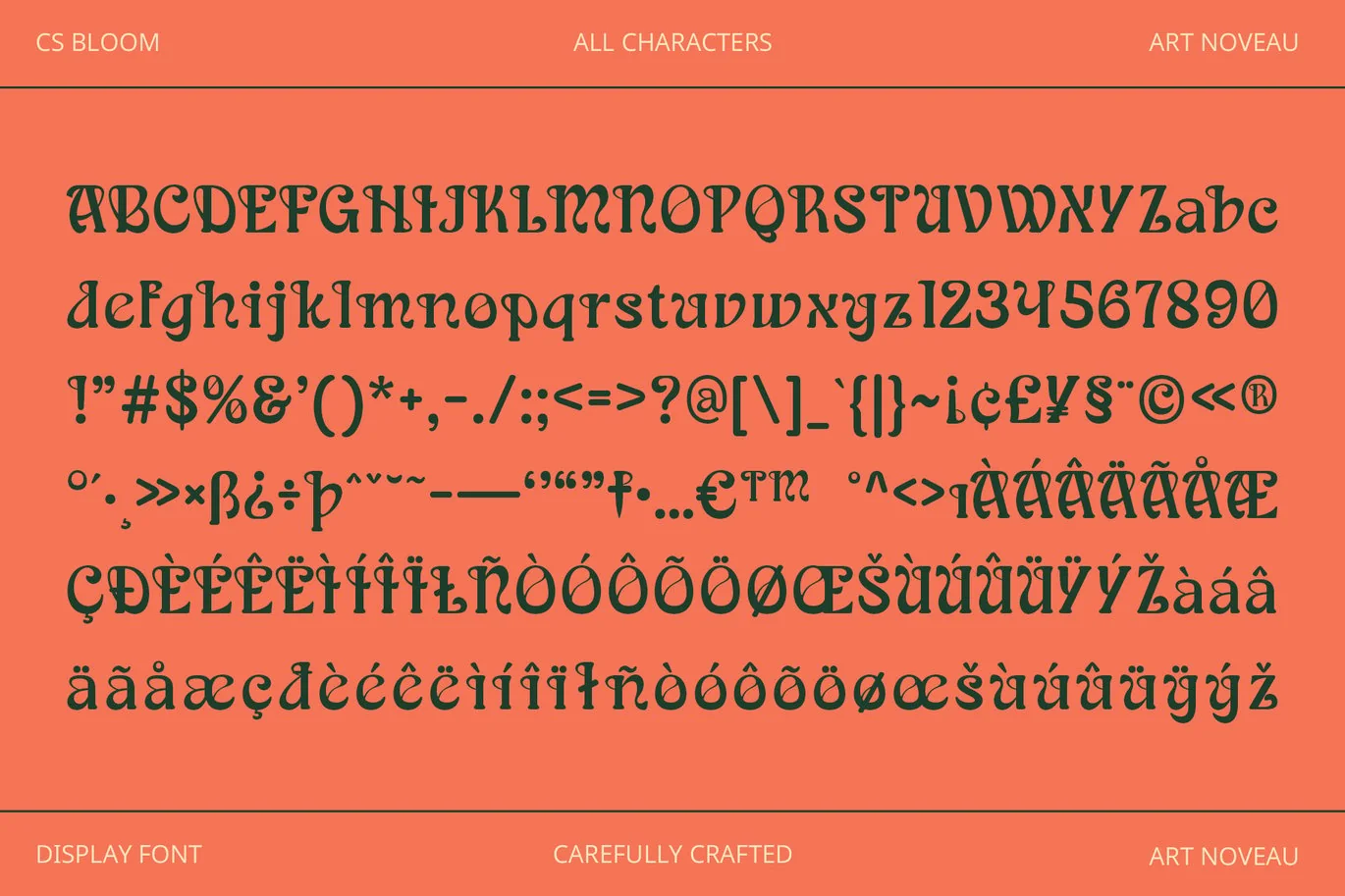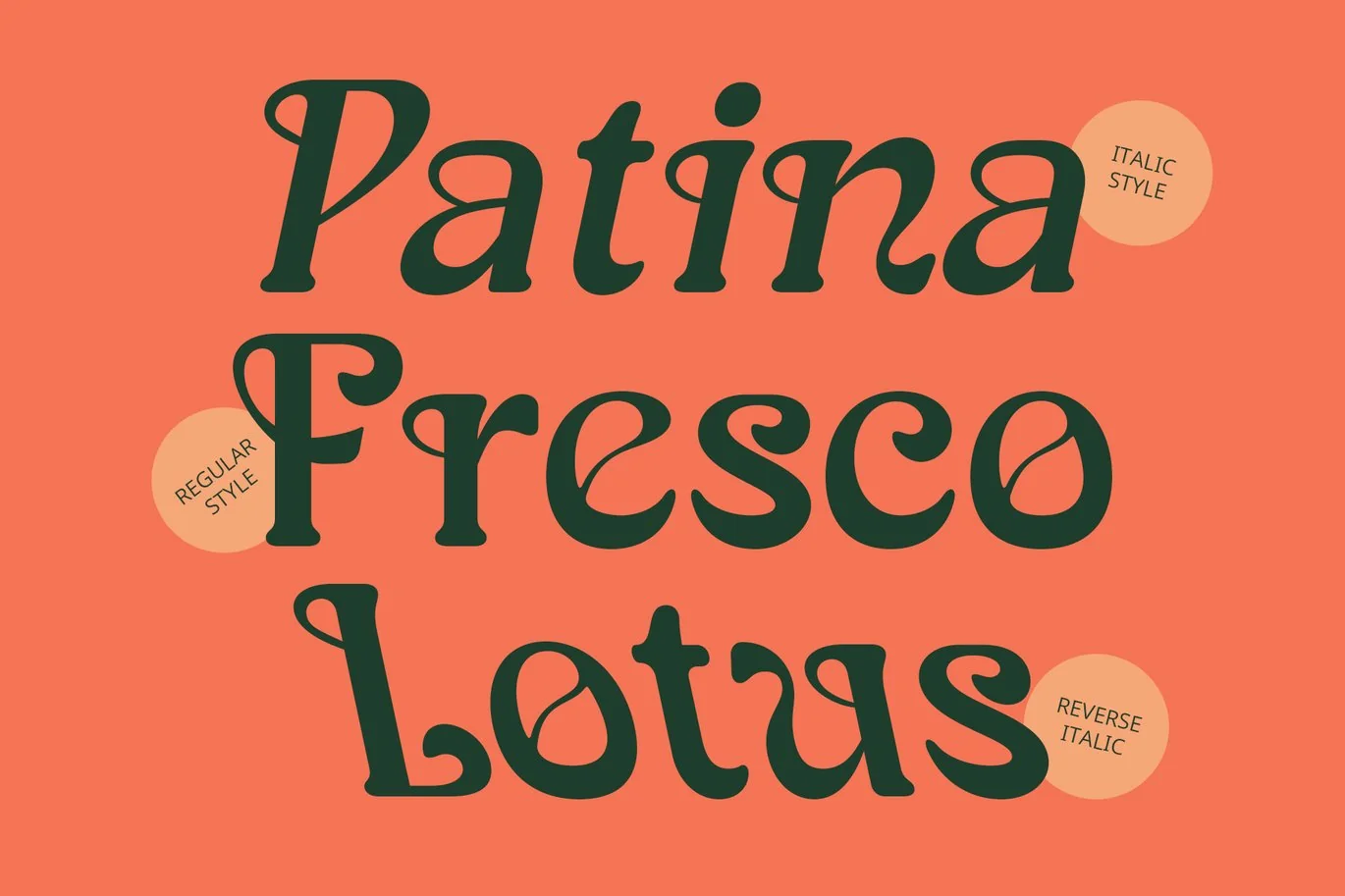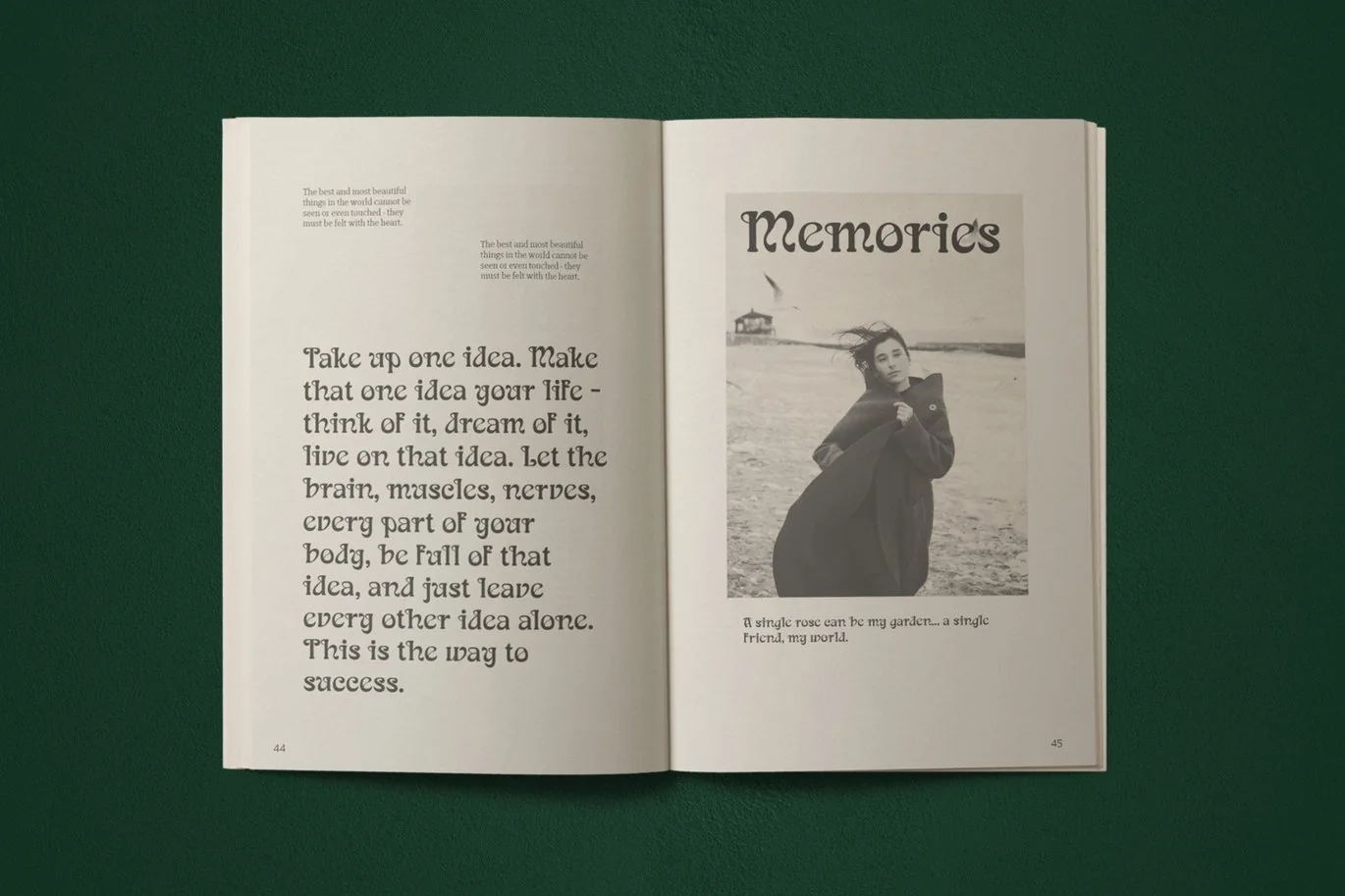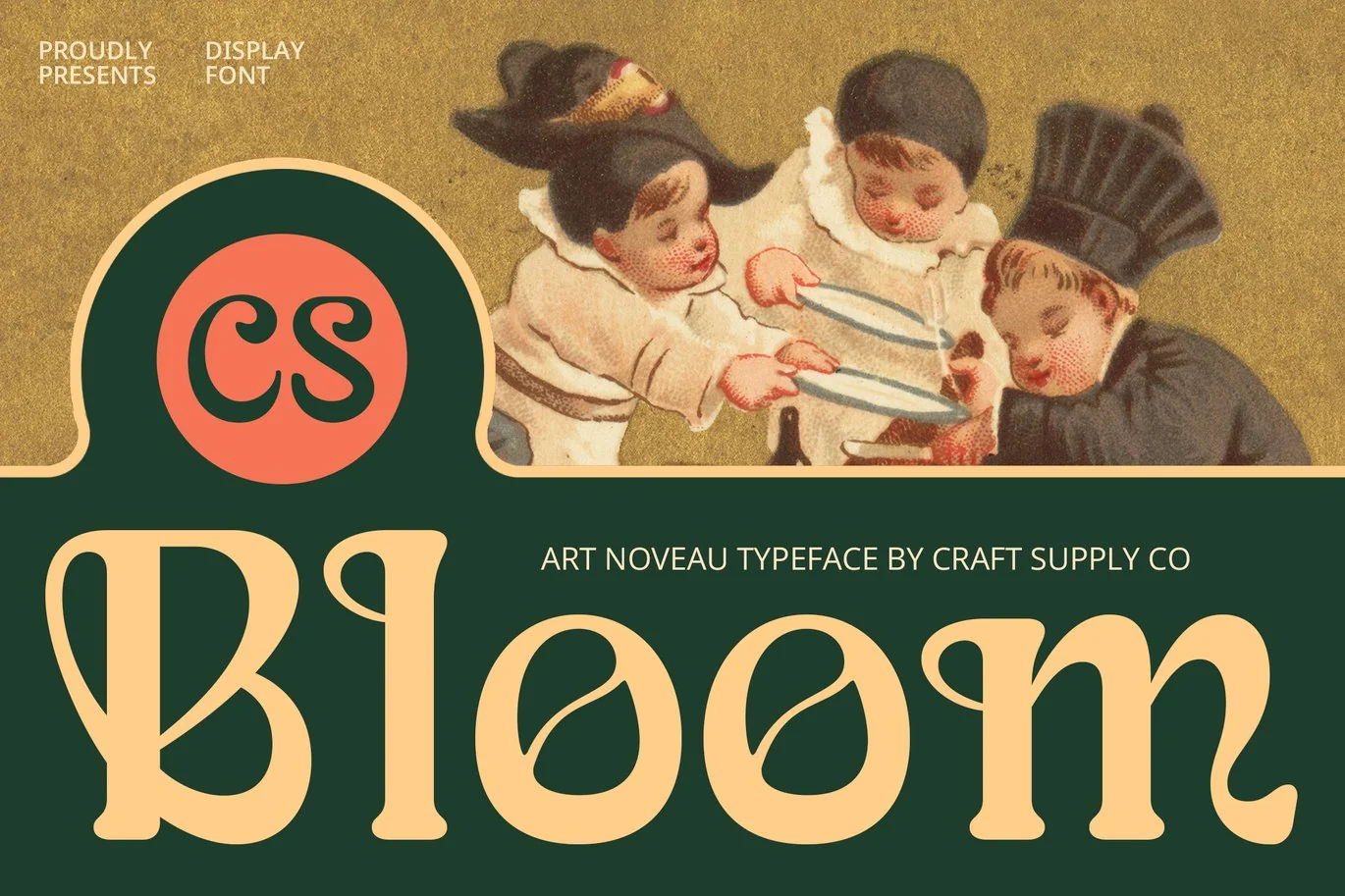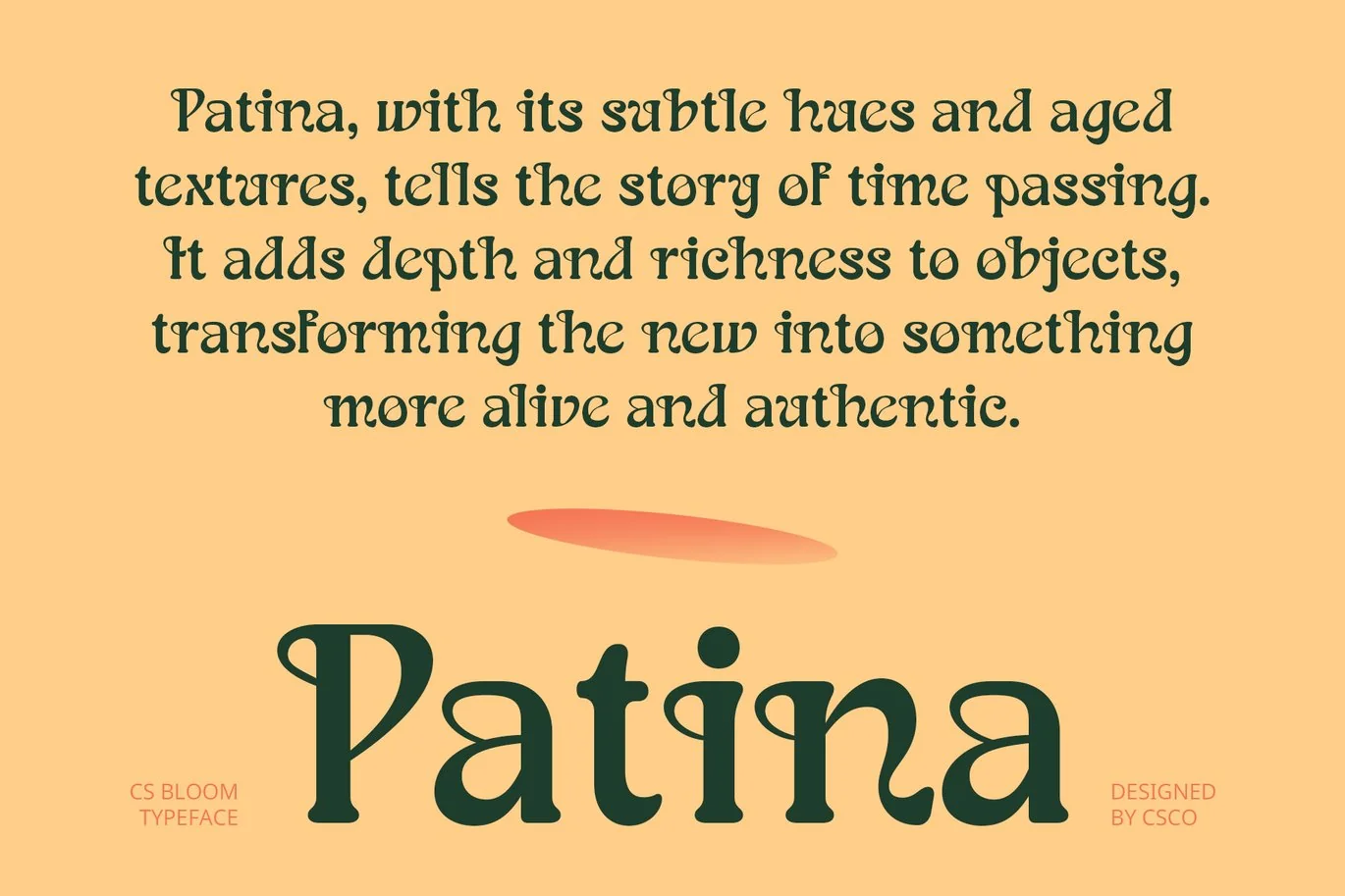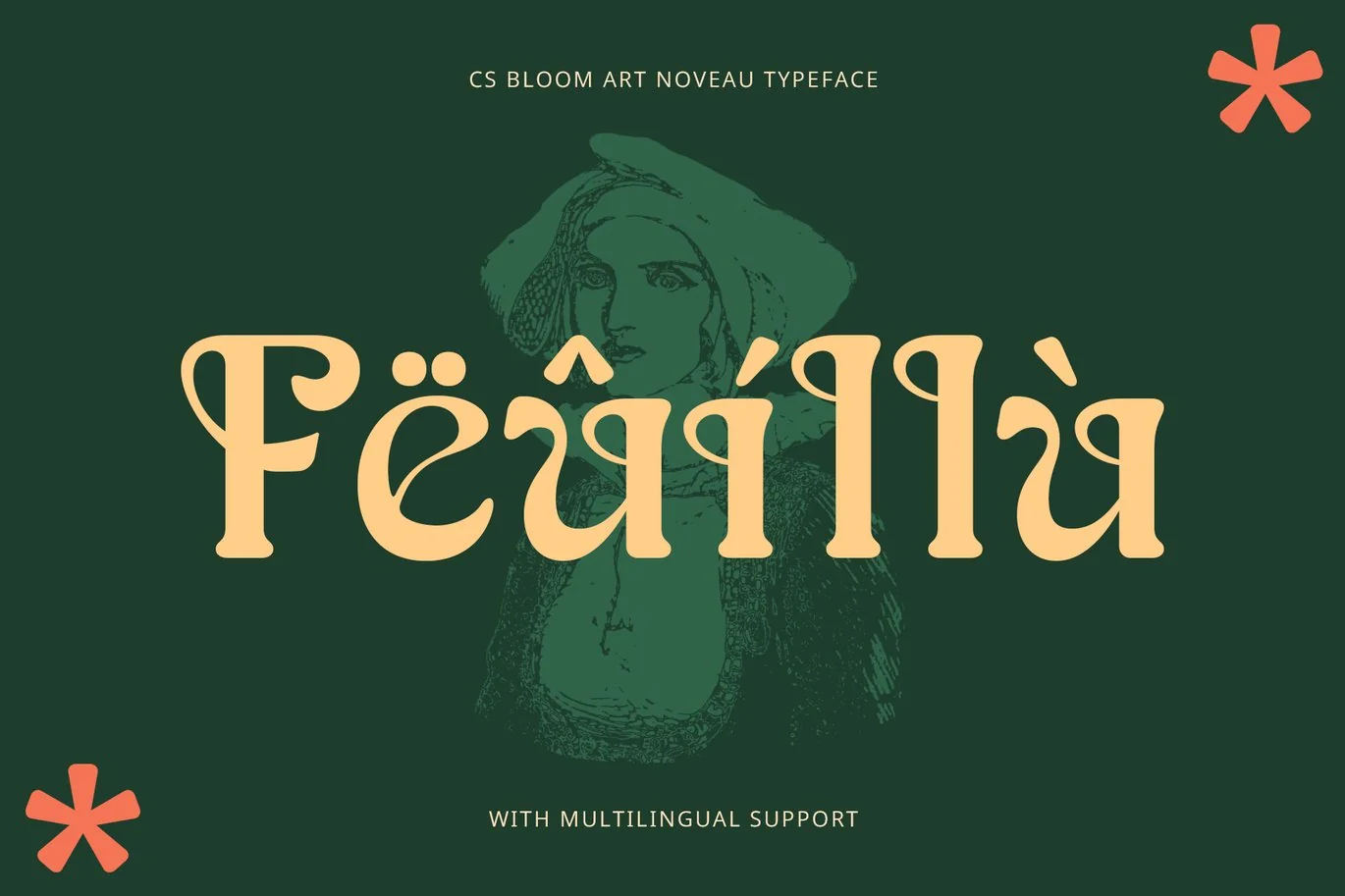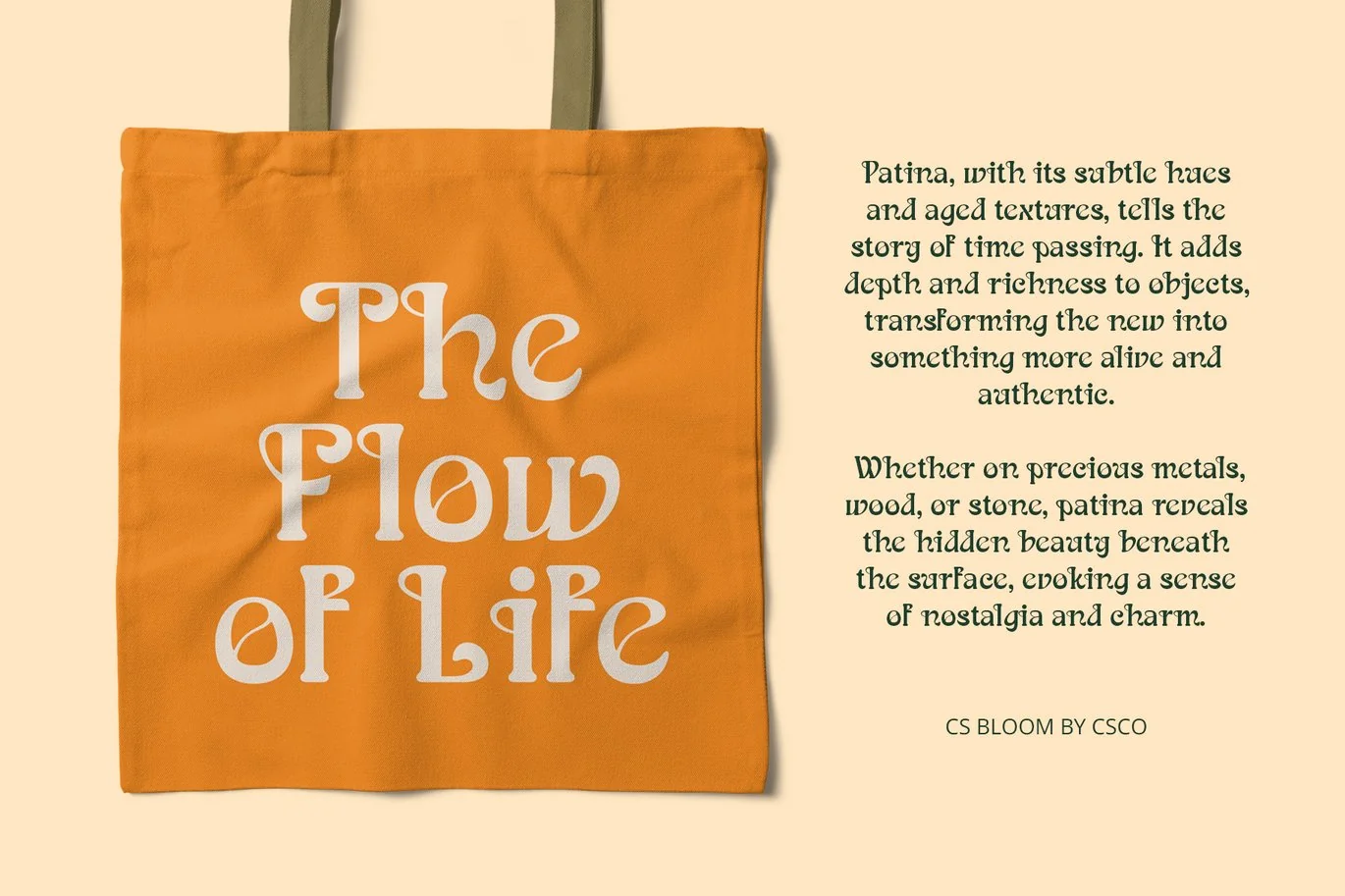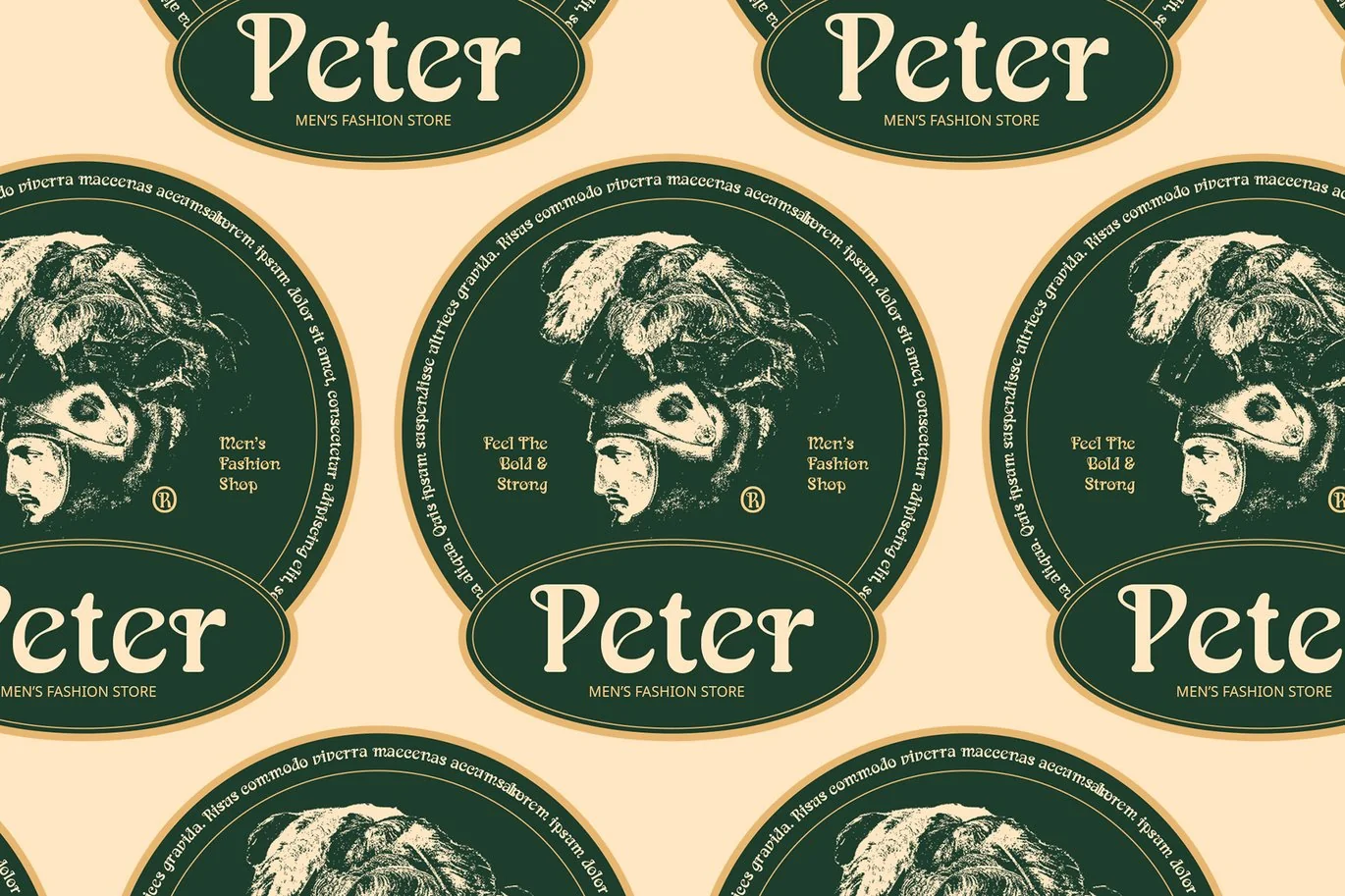
CS Bloom – Art Nouveau Font
CS Bloom – Art Nouveau Font: Retro Elegance with Artistic Flourish
Art Nouveau Serif with Decorative Elements
CS Bloom – Art Nouveau Font is a sophisticated serif typeface that embodies the essence of early 20th-century Art Nouveau design. Combining curving ornaments and fine lines with distinctive decorative elements, this font showcases a retro elegance and beauty that highlights its artistic heritage.
Elegant and Romantic Design
Experience the romance of CS Bloom’s design, where artistic details create a visually captivating and highly aesthetic impression. The font’s flowing curves and intricate embellishments evoke a sense of luxury and refinement, making it perfect for projects that seek to capture a classic and sophisticated charm.
Ideal for Luxurious and Unique Projects
Whether for formal invitations, vintage packaging designs, or high-end branding, CS Bloom – Art Nouveau Font provides a touch of timeless elegance. Its unique and ornate style ensures your designs stand out with a luxurious and artistic flair, enhancing any project with a refined and sophisticated appeal.
Versatile for Classic and Artistic Applications
CS Bloom excels in adding a classic and romantic touch to various design applications. From sophisticated branding to elegant packaging, this font’s Art Nouveau influences bring a unique and beautiful aesthetic to projects that require both luxury and artistic distinction.